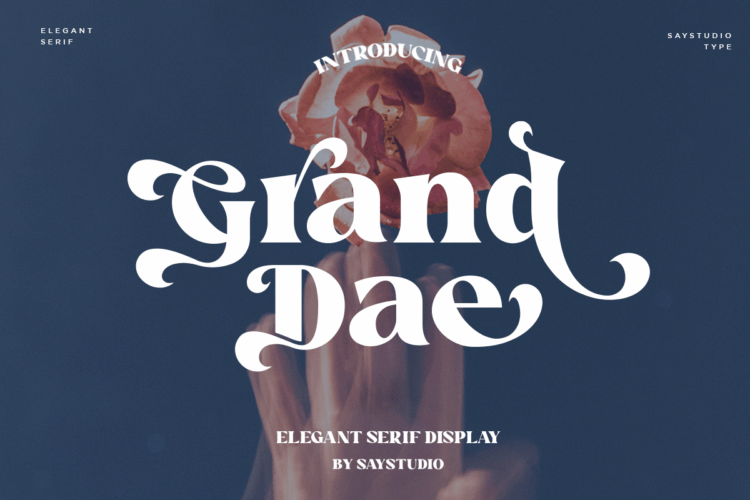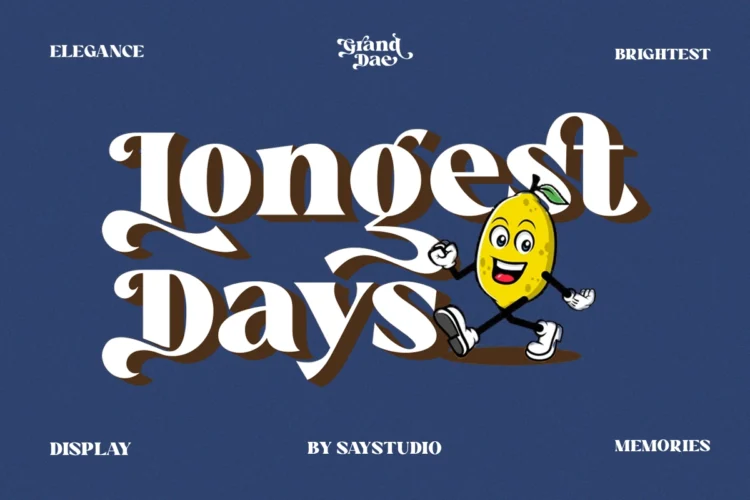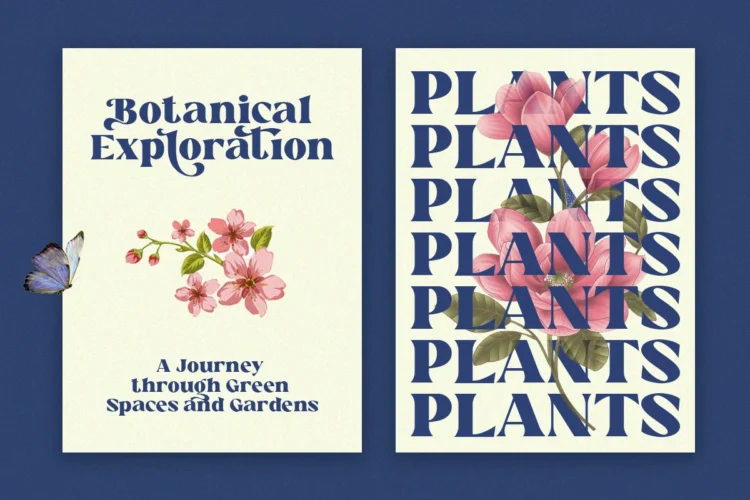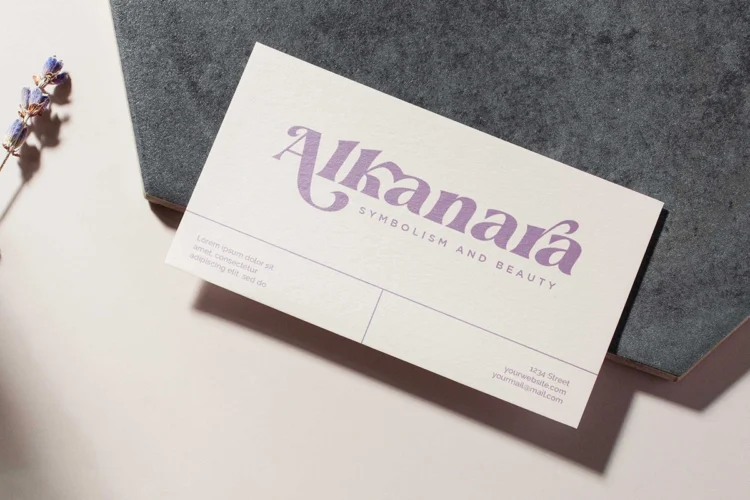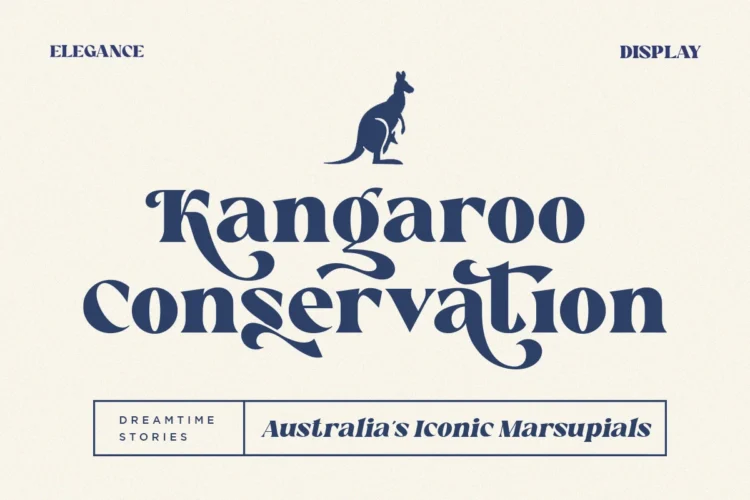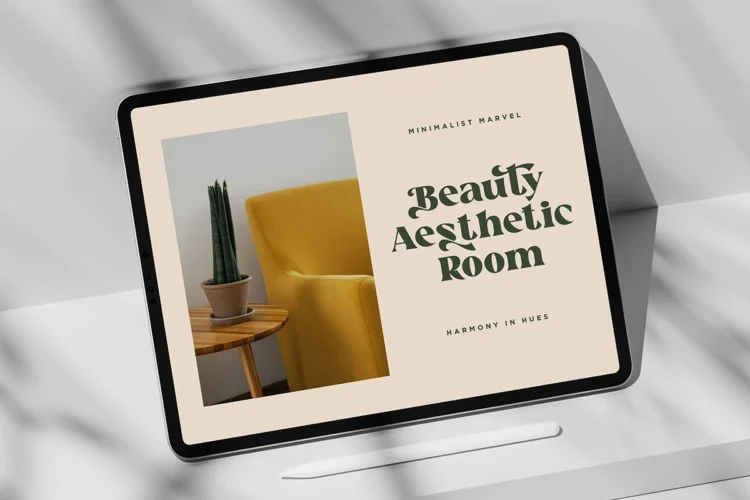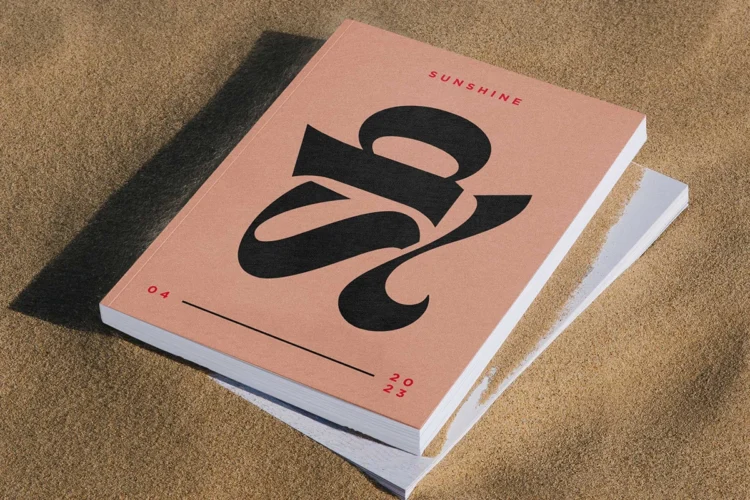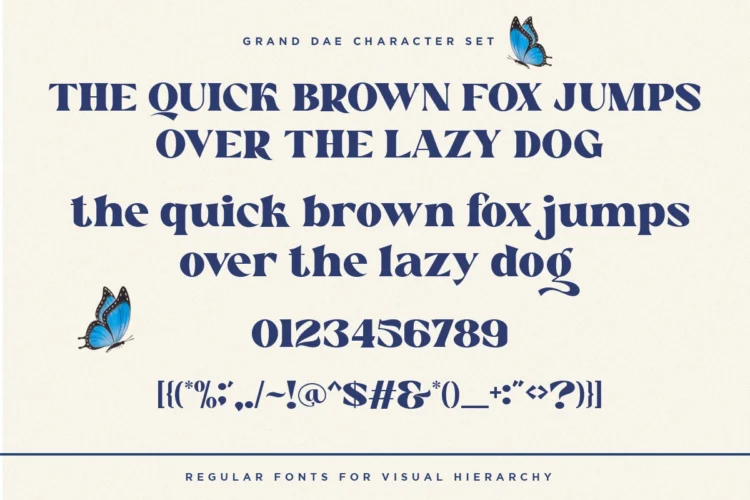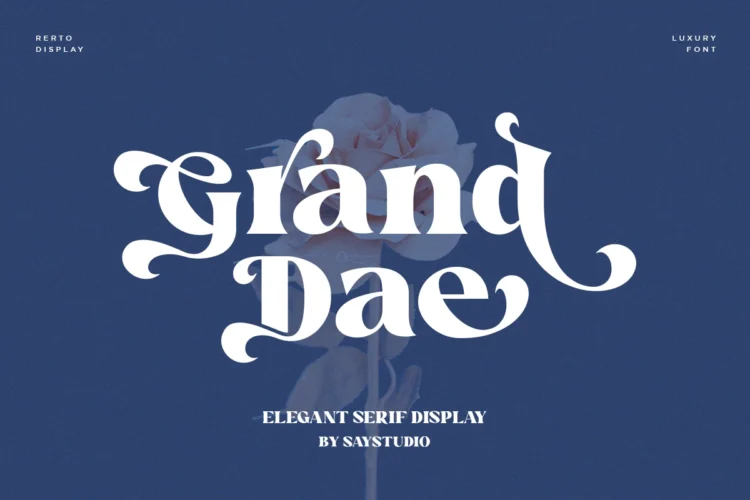
Grand Dae
Grand Dae-Italic
Grand Dae is a Modern Elegant Serif Typeface.
Grand Dae is unique as it can be used for a variety of design styles. It fits in wonderfully for free-spirited, boho designs and also for more classy editorial looks!
There are a lot of fun stylistic alternates available to use with this font. These letters are embedded into the font file and easily accessible in programs such as photoshop and illustrator.